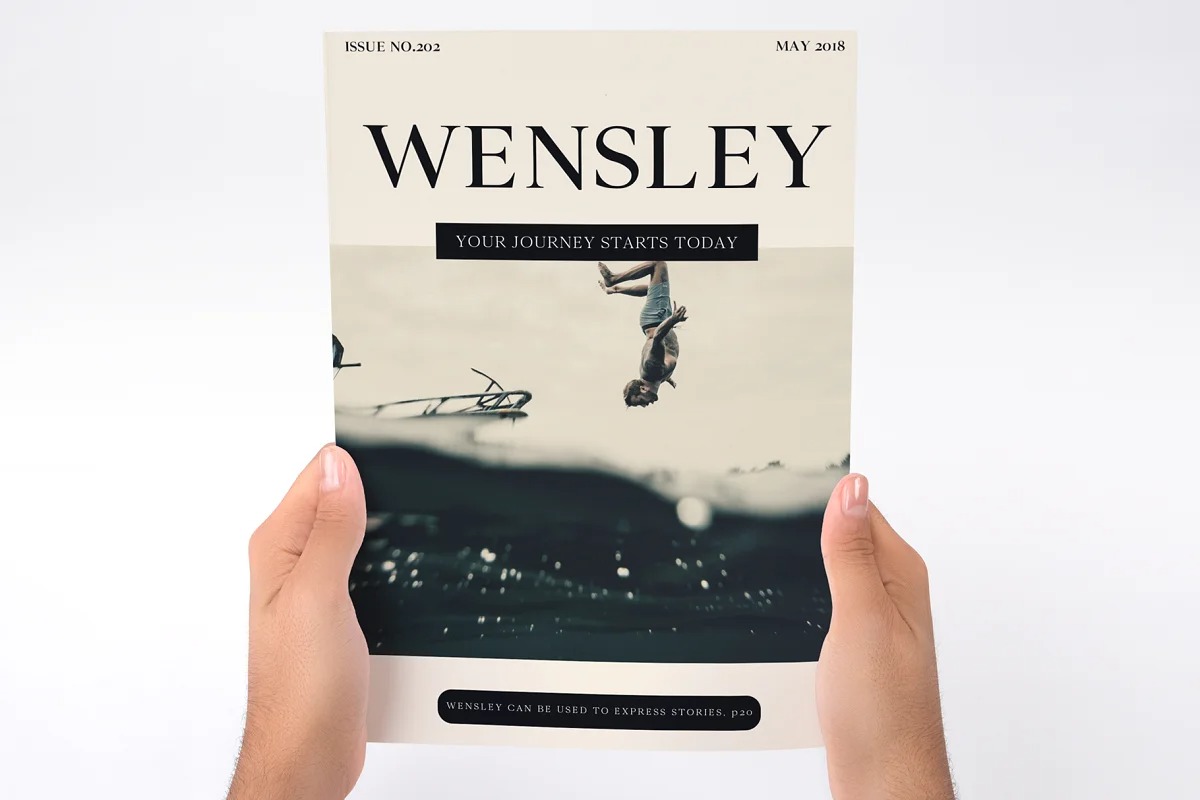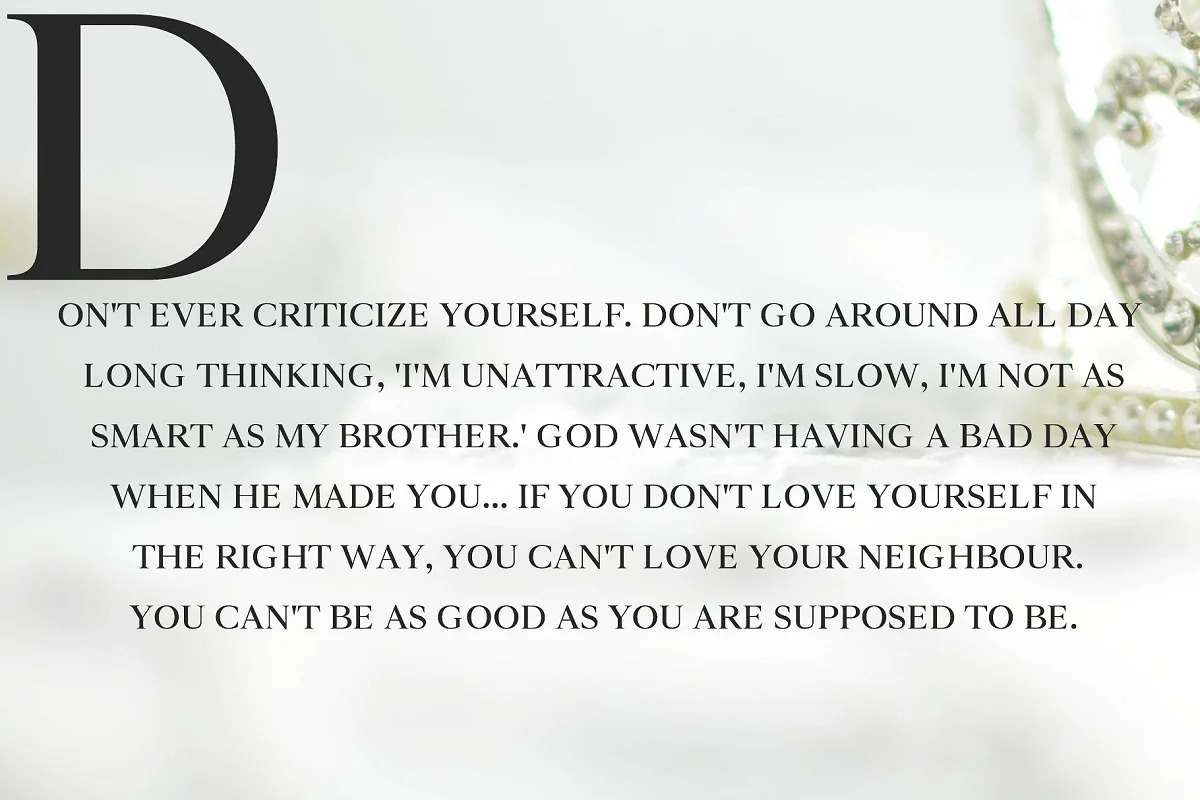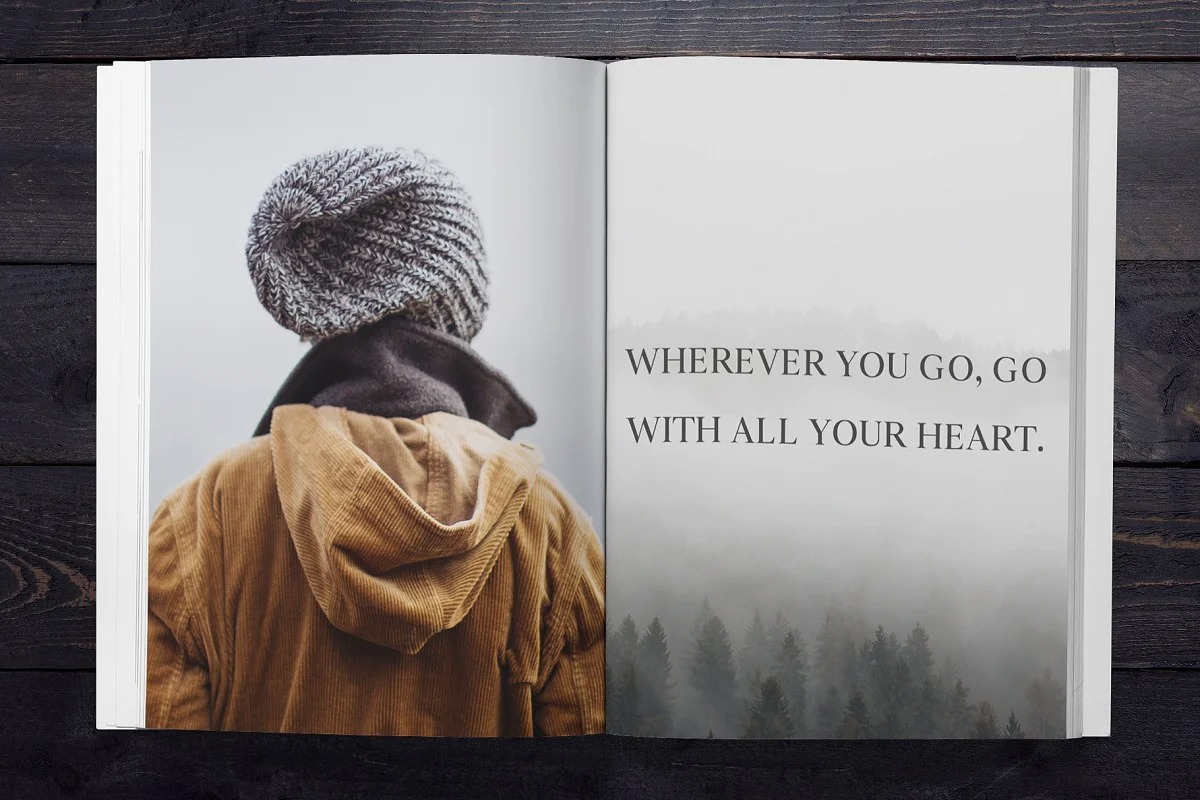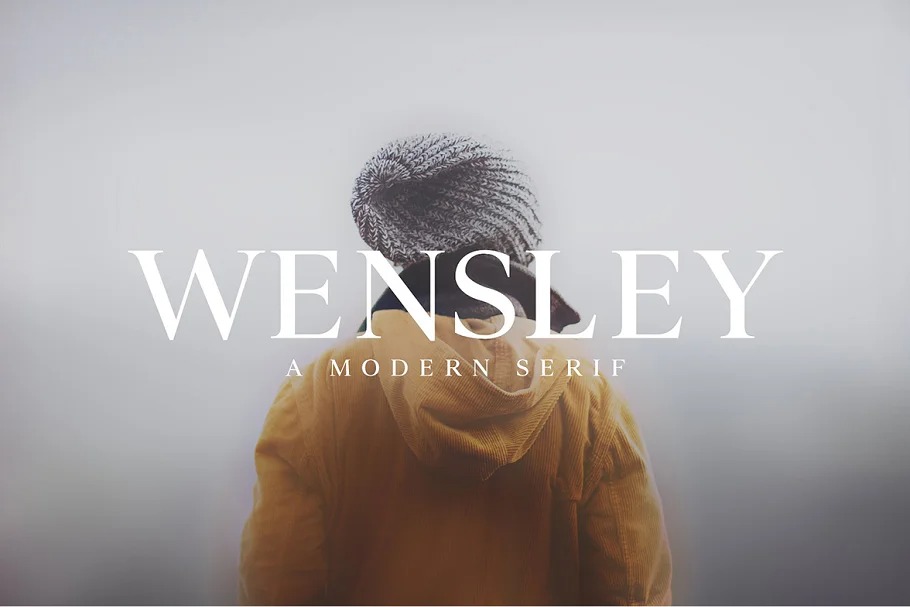
Wensley Typeface
Wensley Serif Font is luxurious serif typeface that will engage your audience and make your promotions and projects stand out. It includes all basic glyphs with Non-English characters. This font will pair beautifully with the script, signature or handwriting style. Wensley is perfect for headlines, titles, magazines headings, logo’s, presentations, posters, name card, web layouts, invitations, books, branding, and nearly any creative design.